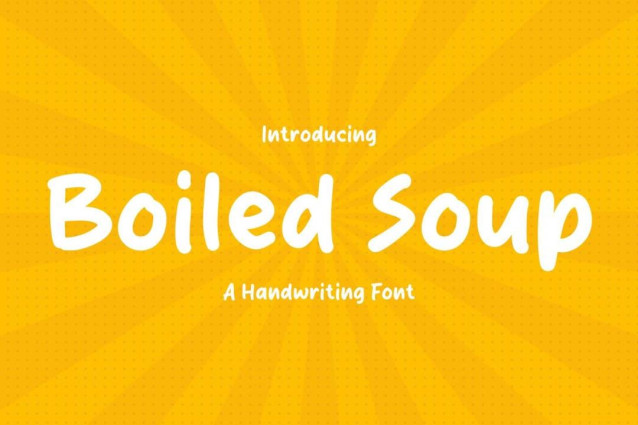
Boiled Soup Font
Boiled Soup Font is a simple and friendly handwritten font. Its natural and unique style makes it incredibly fitting to a large pool of designs. The only limit is your imagination!